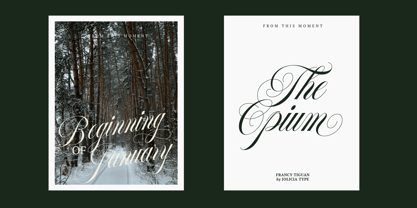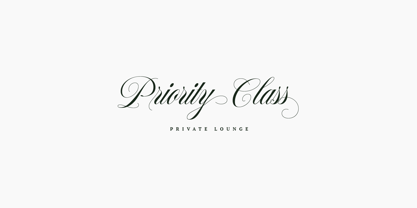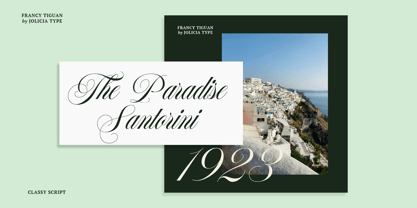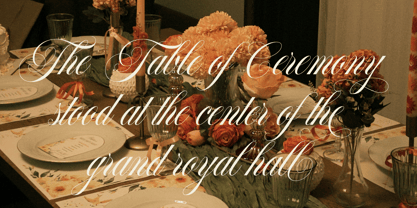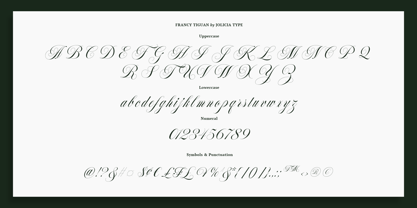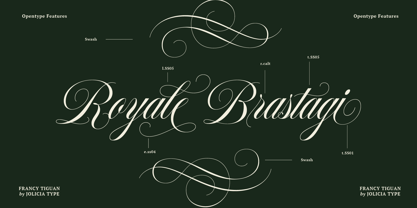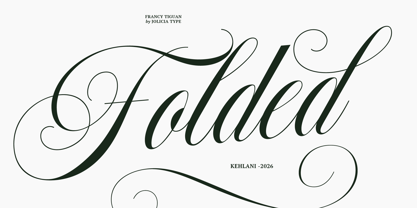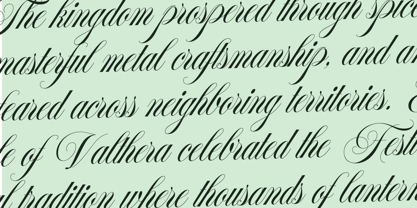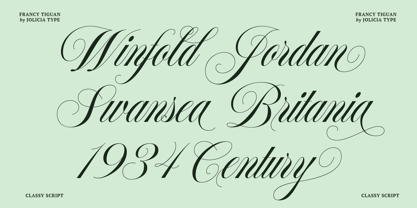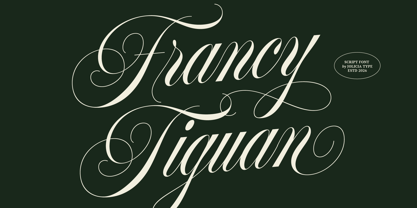
Francy Tiguan
by Jolicia Type
The Francy Tiguan Font Family was designed by Laire Banyu and published by Jolicia Type. Francy Tiguan contains 1 styles. More about this family
Francy Tiguan is a classy script font that seamlessly blends elegant calligraphy with modern luxury aesthetics. Featuring flowing swashes, graceful curves, and refined letterforms, this font creates a sophisticated and romantic impression, making it perfect for premium branding. Its stylish handwritten appearance is ideal for wedding invitations, feminine logos, fashion branding, beauty packaging, social media quotes, editorial design, and luxury typography projects. With its timeless elegance and artistic detail, Francy Tiguan adds a chic, high-end touch to every creative composition, enhancing visual appeal and engagement.
Designers: Laire Banyu
Foundry: Jolicia Type